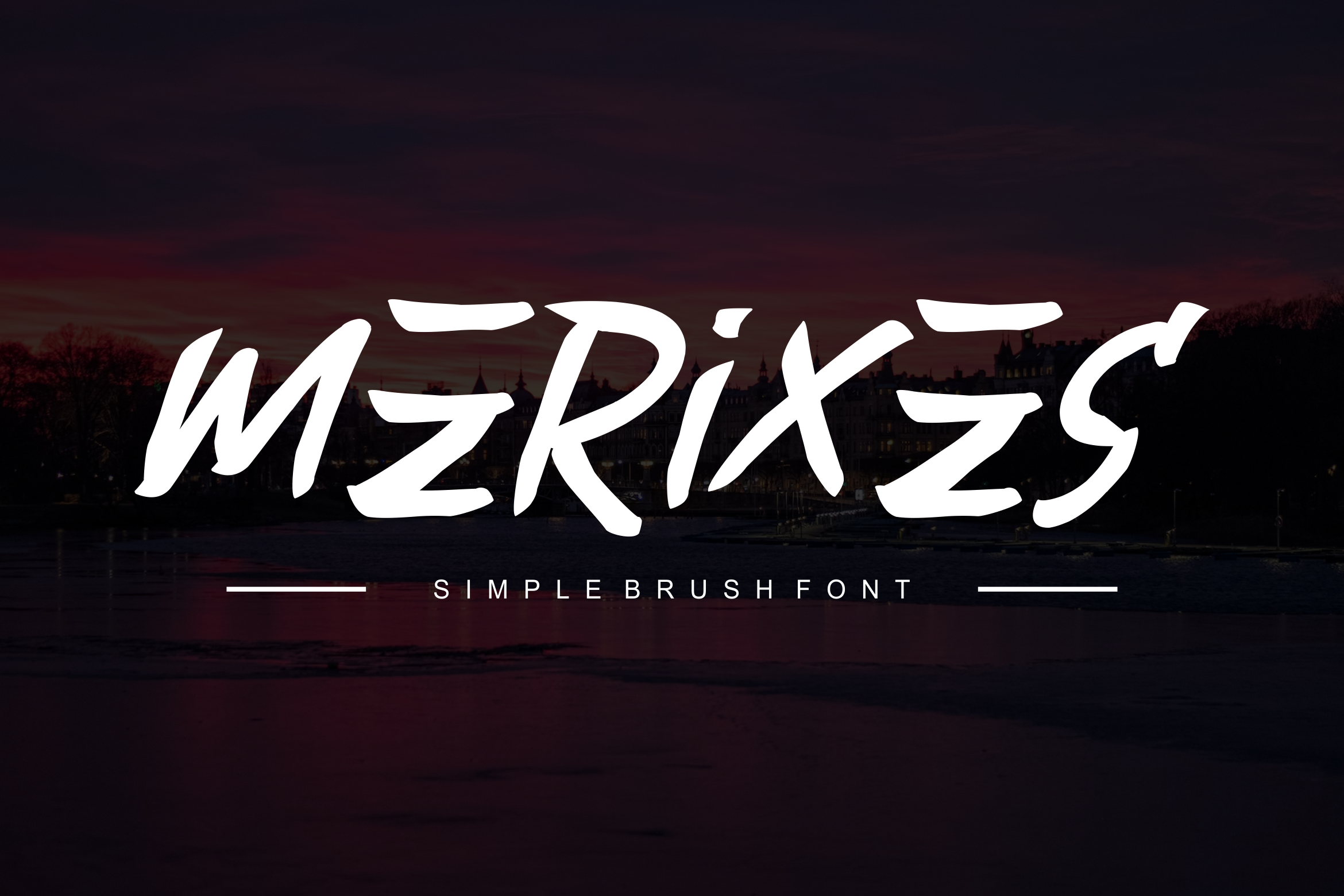
Merixes Font
Introducing our new product Merixes Font - Modern Font
Merixes Font - Modern Font is a bold and authentic display font. The font is suitable for any branding project like logo, esport, and many more. outstanding in a wide range of contexts.